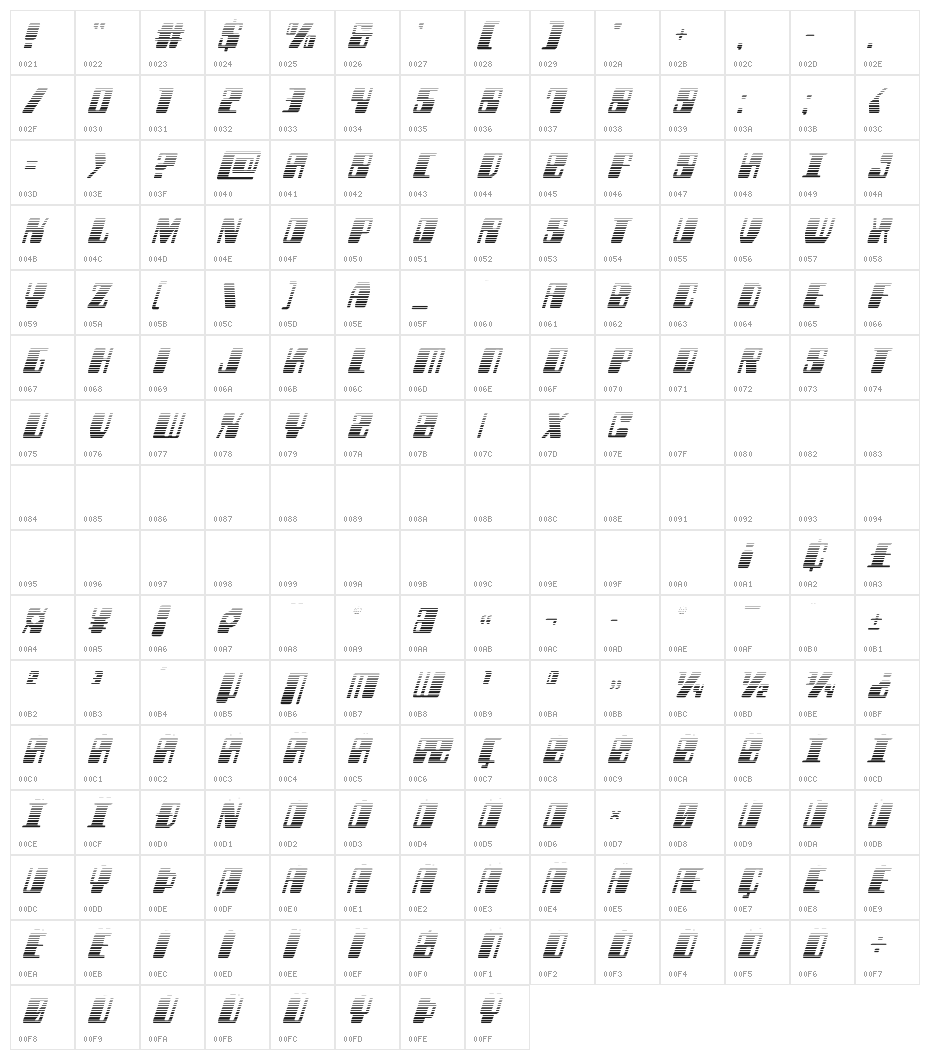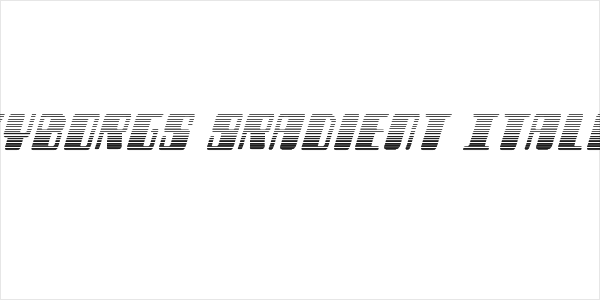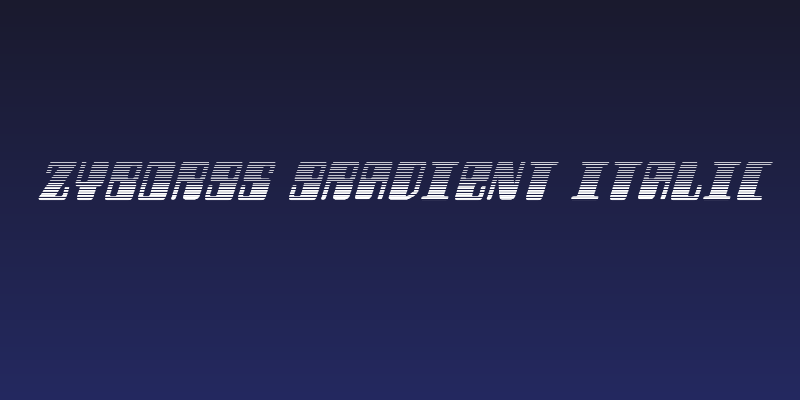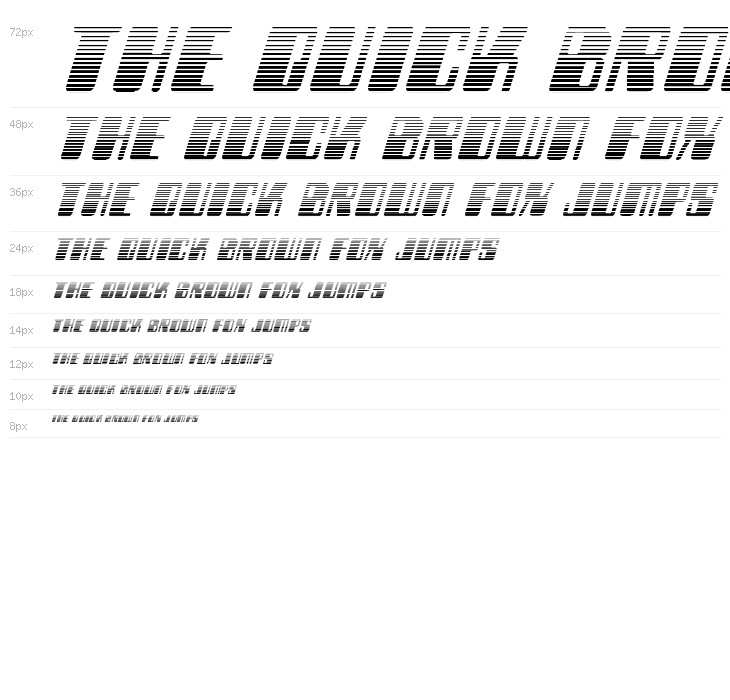
Zyborgs Gradient Italic Font
Zyborgs Gradient Italic Description
This font features a futuristic and dynamic design, characterized by a gradient effect that gives each character a sense of movement and depth. The italicized style adds to its energetic appearance, making it stand out with a sleek and modern aesthetic. The characters are composed of horizontal lines that create a striped pattern, enhancing the font's unique visual appeal. This design is particularly effective in conveying a sense of speed and technology, making it suitable for projects that require a bold and innovative look.
| Proposed Projects | Ideal for technology branding, sci-fi posters, video game titles, and futuristic event promotions. |